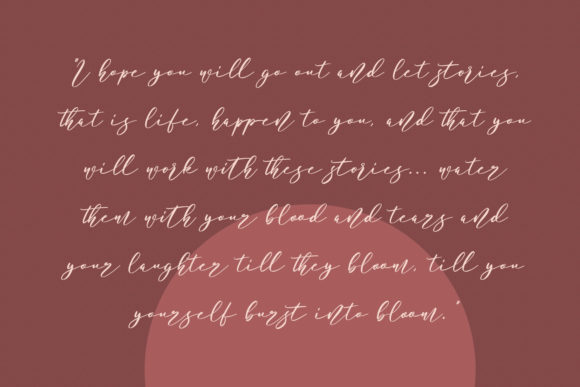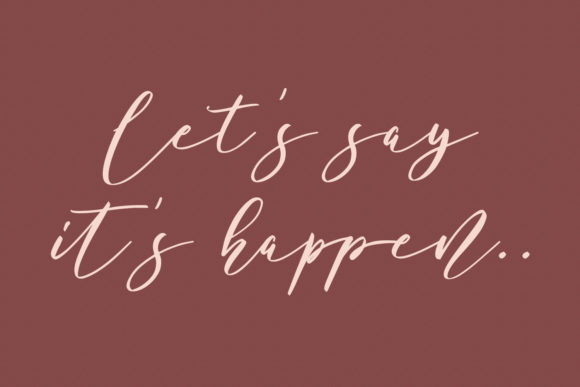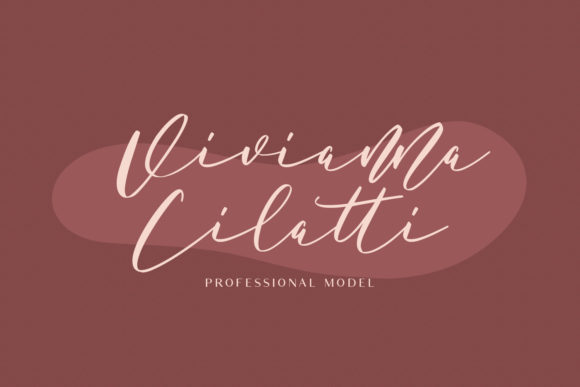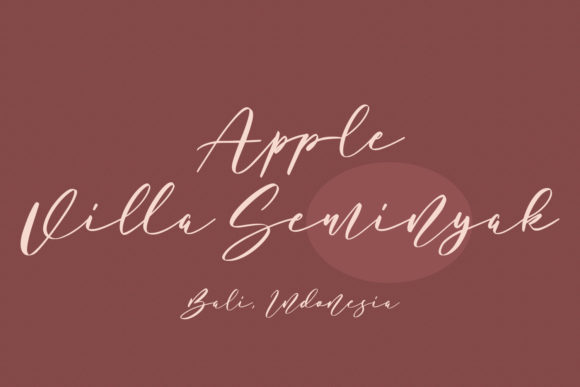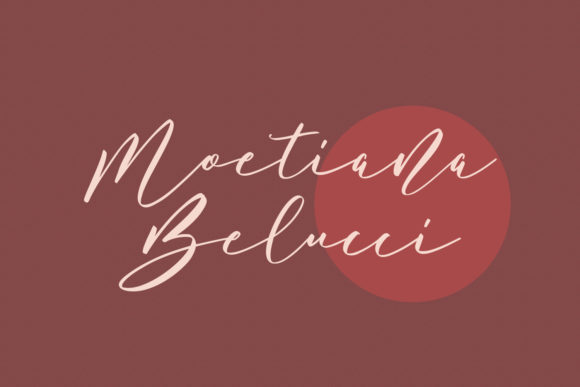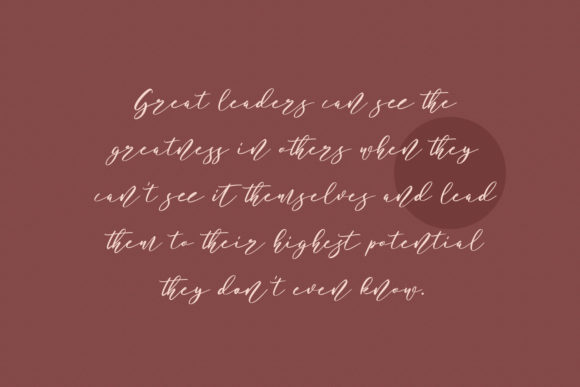
Introducing Combuslane Script Font: Elevate Your Designs with Luxurious Handwritten Elegance
Are you on the hunt for a font that exudes luxury, sophistication, and a touch of modern flair? Look no further than Combuslane Script Font. This stunning handwritten font is meticulously designed to capture the essence of high-end calligraphy while maintaining a fresh and contemporary feel. In this article, we’ll dive into the world of Combuslane Script, exploring its features, benefits, and uses, and why it’s poised to become your new favorite font.
The Art of Combuslane Script
Combuslane Script Font is a masterclass in elegant typography. Its classy calligraphic influences are evident in its fluid strokes, precise letterforms, and beautiful ligatures. Yet, despite its traditional roots, this font feels remarkably modern and versatile. Whether you’re working on a branding project, packaging design, or simply looking to add a touch of sophistication to your digital content, Combuslane Script is the perfect choice.
What Makes Combuslane Script Stand Out?
- Luxurious and Refined: Combuslane Script boasts a level of luxury that’s hard to find in digital fonts. Its refined lines and classic influences make it perfect for high-end branding, weddings, and other special occasions.
- Contemporary and Fresh: Despite its classic roots, Combuslane Script feels remarkably modern. Its unique character and stylish flair make it an excellent choice for designers looking to create something new and exciting.
- Versatile: Combuslane Script is incredibly versatile, suitable for a wide range of applications, from digital content to print materials. Use it for titles, headings, or even body text to add a touch of elegance to your designs.
- Easy to Read: One of the standout features of Combuslane Script is its readability. Even at smaller sizes, this font remains clear and legible, making it perfect for use in a variety of contexts.
Who Can Benefit from Combuslane Script?
Combuslane Script Font is a valuable addition to any designer’s toolkit, regardless of their specific niche or industry. Here are just a few examples of who can benefit from this beautiful font:
- Graphic Designers: Add a touch of luxury to your branding, packaging, and advertising projects with Combuslane Script.
- Wedding and Event Planners: Create stunning wedding invitations, programs, and signage with this elegant font.
- Crafters and Makers: Use Combuslane Script to add a personal touch to your craft labels, packaging, and marketing materials.
- Digital Content Creators: Elevate your blog posts, social media graphics, and video titles with the sophisticated charm of Combuslane Script.
How to Use Combuslane Script in Your Projects
Integrating Combuslane Script into your workflow is easy. Here are a few tips to get you started:
- Pair it with Other Fonts: Combine Combuslane Script with complementary fonts to create visually appealing contrast and hierarchy in your designs.
- Experiment with Colors: Take advantage of Combuslane Script’s luxurious feel by pairing it with rich, bold colors that enhance its elegance.
- Play with Ligatures: Combuslane Script features beautiful ligatures that can add an extra touch of sophistication to your text. Experiment with different combinations to find the perfect look for your project.
Combuslane Script Font is a game-changer for designers and crafters looking to elevate their projects with luxurious handwritten elegance. Its unique blend of classic calligraphy and modern flair makes it an incredibly versatile and valuable addition to any design toolkit. Whether you’re working on a high-end branding project or simply looking to add a touch of sophistication to your digital content, Combuslane Script is sure to impress. So why wait? Fall in love with Combuslane Script and bring your projects to the highest levels!